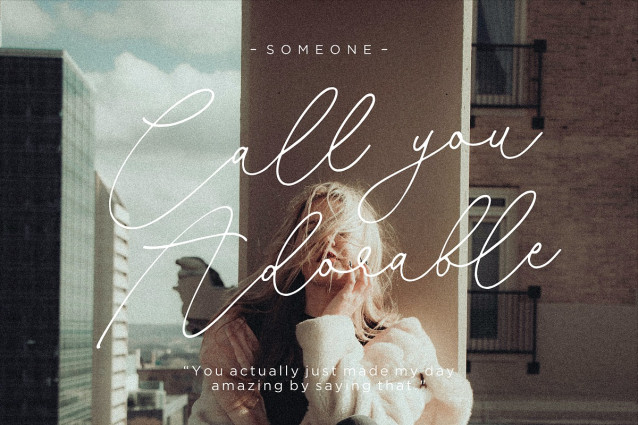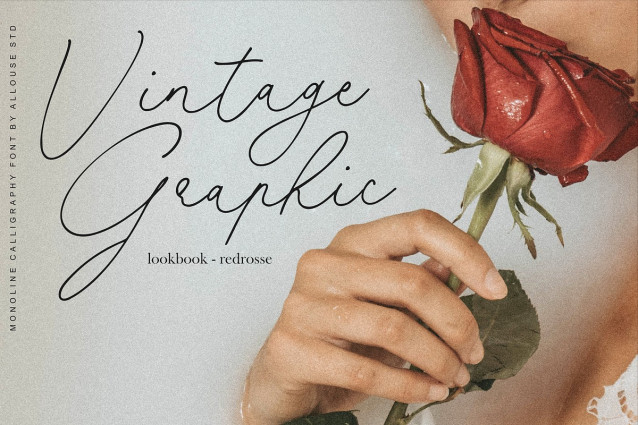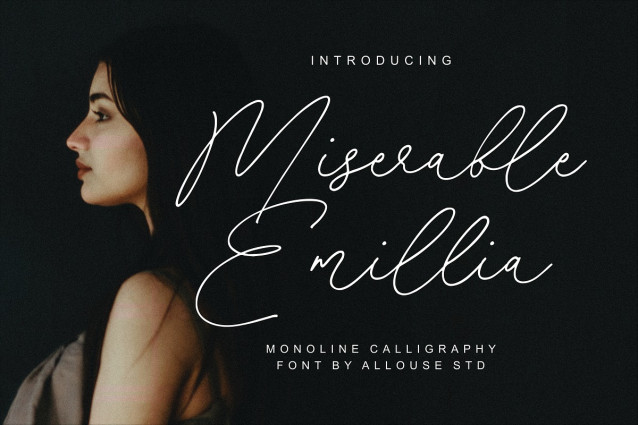
Miserable Emillia Font
Miserable Emillia Font is perfect for any titles, logo, product packaging, branding project, megazine, social media, wedding, or just used to express words above the background. Miserable Emillia also come with Multi-Lingual Support.